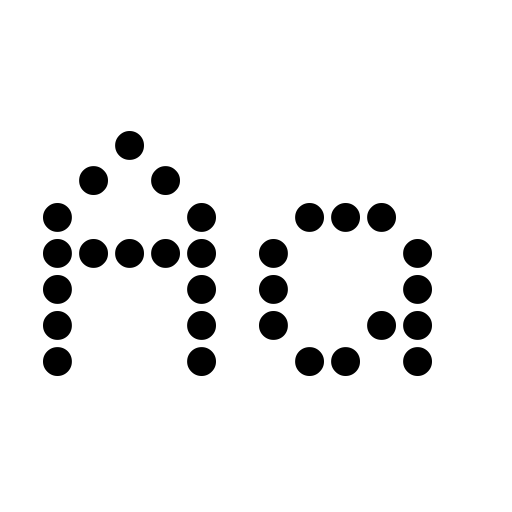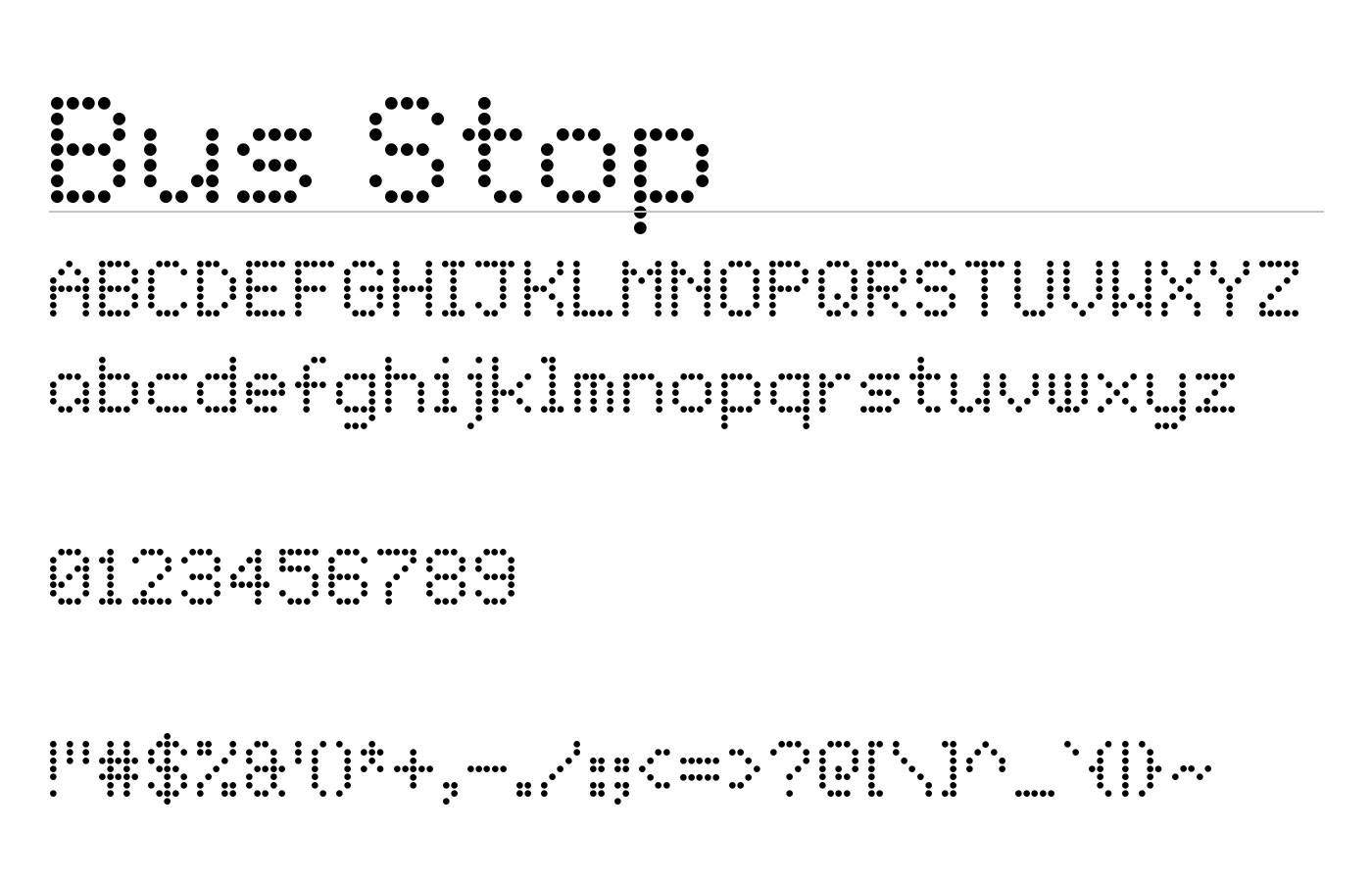
Bus Stop Font is a unique sans serif typeface characterized by its dotted, marquee-like structure that creates a playful yet modern impression. Its even spacing and rounded dot forms give it a light, airy feel, making it ideal for signage, display purposes, and creative branding where a fun, eye-catching style is desired. This font works especially well in settings that want to evoke a retro or tech-inspired vibe with a distinctive, digital twist.
Bus Stop Font
About Bus Stop Font